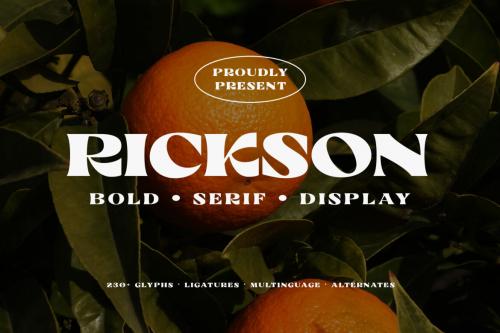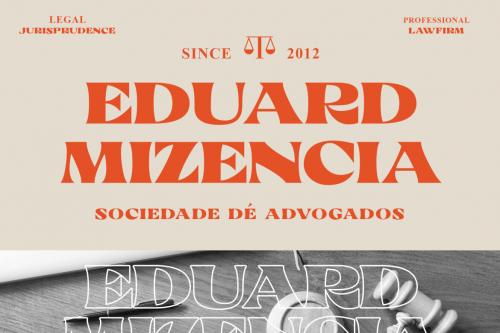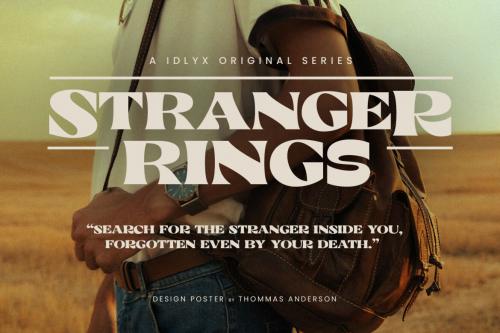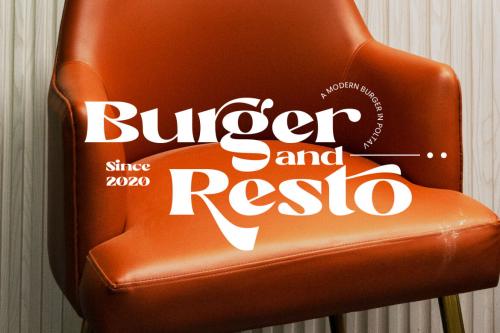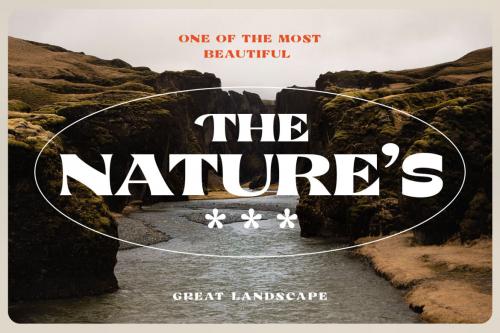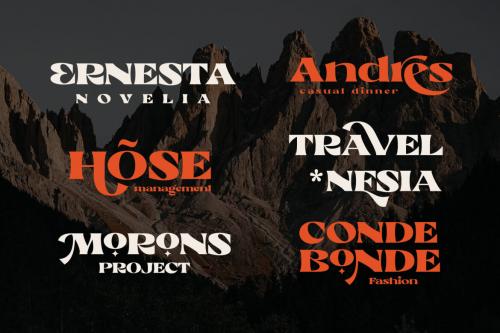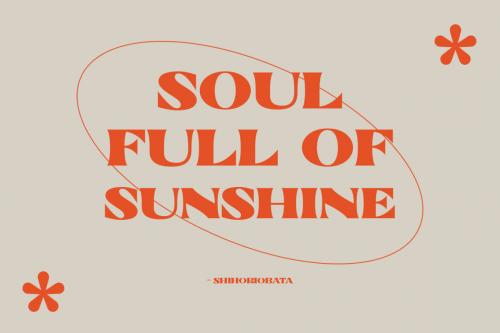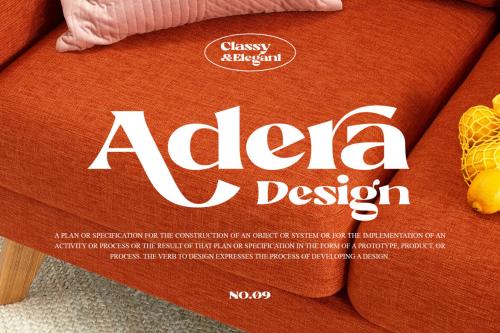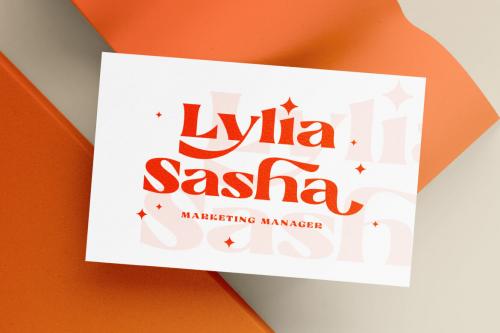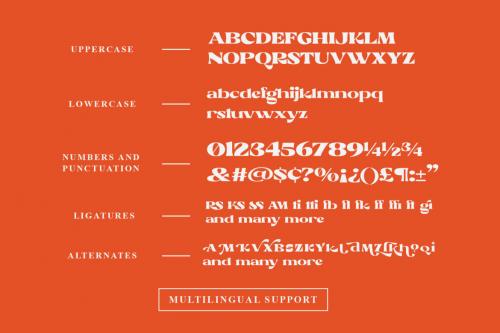
Introducing Rickson, the handy bold serif typeface. Designed with satisfying large serif, and inspired by the newspaper headline and classy fashion logos. In this font, you can find strong and mild looks at the same time that makes Rickson can be used for many purposes.
Work perfectly for logo, headline, title, or any design which needs emphasis from typography. Rickson is more complete with ligatures and a lot of special characters that you can apply and get the classy looks.